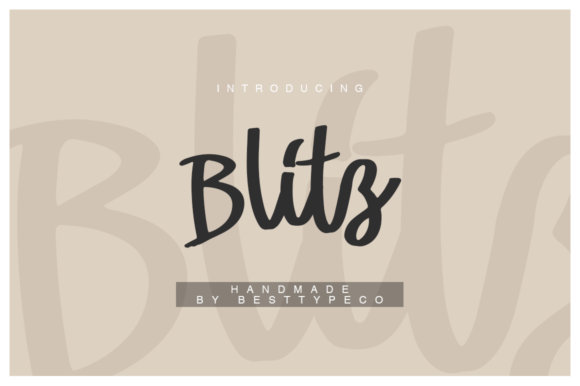
The Ultimate Design Game-Changer: Blitz Font
Have you ever been in the middle of a design project, and suddenly, it all comes down to finding that one perfect font? I recall working on a craft project for a client who wanted a unique, handwritten look that would make their branding stand out. After scouring through countless font libraries, I stumbled upon the Blitz font, and it was love at first sight! 😍
Blitz is a fun and fresh handwritten font with a unique look that will turn any design project into a standout! Its quirky charm and modern vibe make it perfect for designers, crafters, and creative hobbyists looking to add a personal touch to their work.
An Honest Review of Blitz Font
What I Love About Blitz Font
- ✨ Unique and quirky handwritten style that adds a personal touch to any design
- 💥 Excellent for titles, headings, and emphasis text
- 🎨 Versatile and pairs well with a variety of font styles
While Blitz font is an excellent addition to any design project, there are a few things to keep in mind:
- 🤔 Some characters may not work well in all contexts, especially when using all caps or mixing with other font styles
- ⚠️ Limited availability of extended language support
A Practical Guide to Using Blitz Font
- Experiment with OpenType features, such as stylistic alternates, to add more personality to your text
- Choose the Blitz font from your font list and access OpenType features, such as glyphs and ligatures, to enhance your design
The Backstory of Blitz Font
Blitz font was designed with the intention of creating a unique, handwritten look that would add a personal touch to any design project. Inspired by modern calligraphy and hand-lettering, Blitz font is perfect for designers and crafters looking to stand out from the crowd.
Q: What type of projects is Blitz font best suited for?
A: Blitz font is versatile and can be used for a variety of projects, including craft projects, branding, and advertising.
Q: Is Blitz font suitable for body text?
A: While Blitz font is highly legible, it’s best used for titles, headings, and emphasis text. For body text, consider pairing it with a more traditional font.